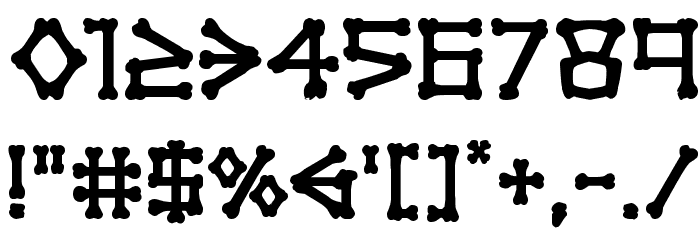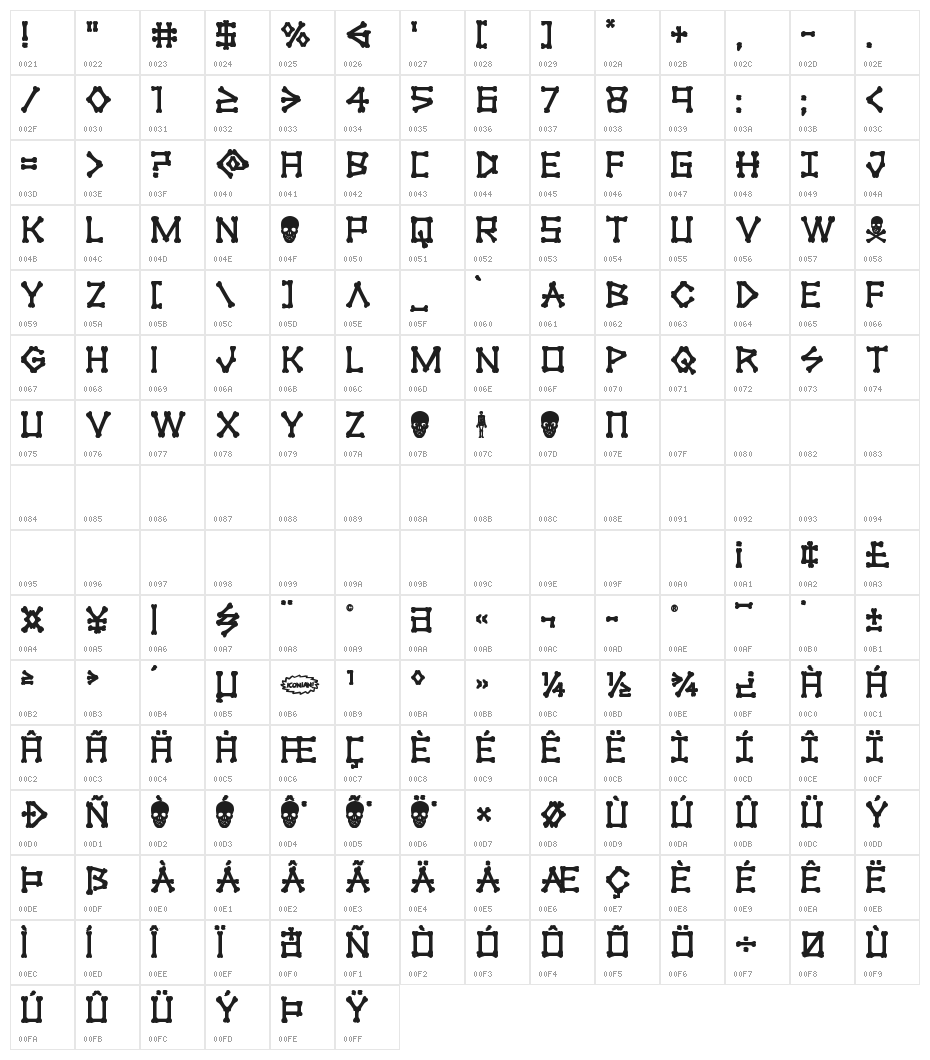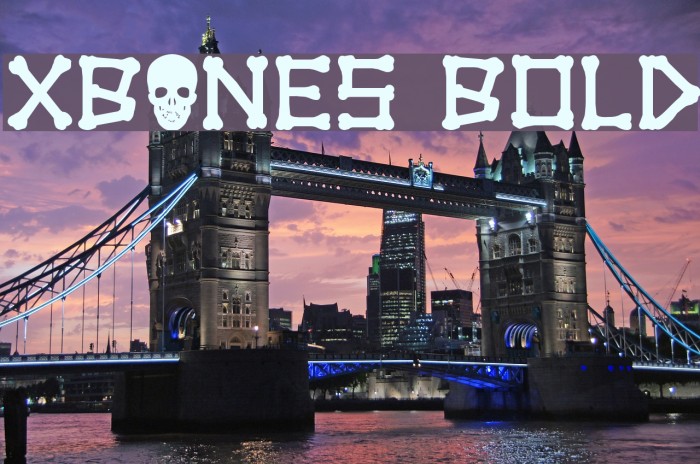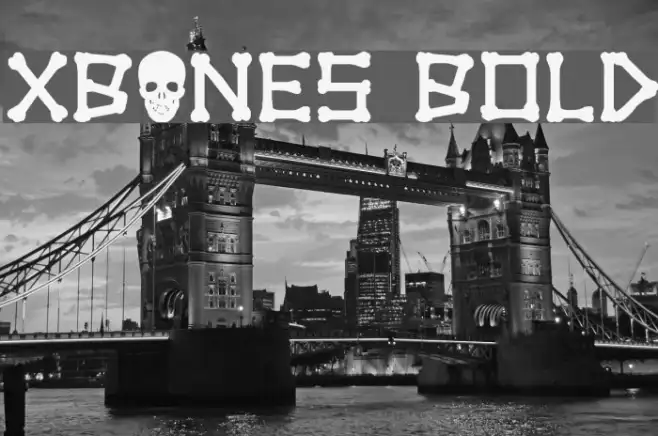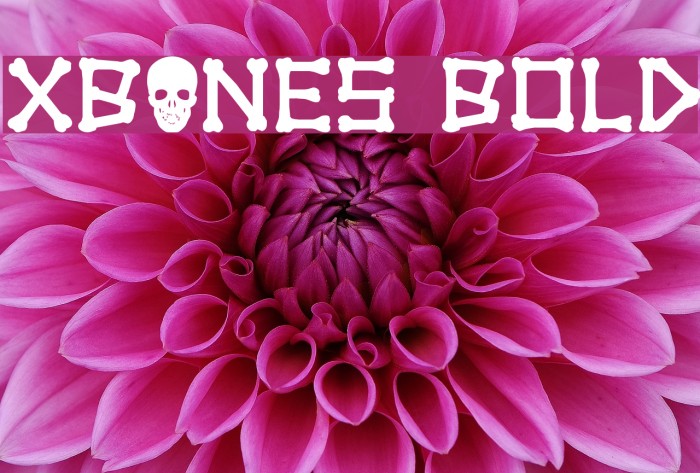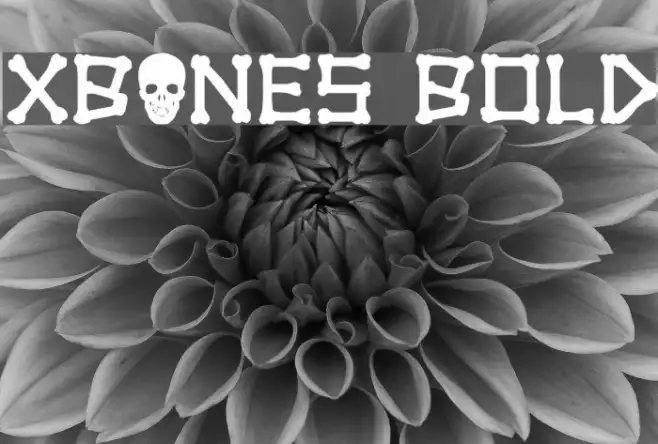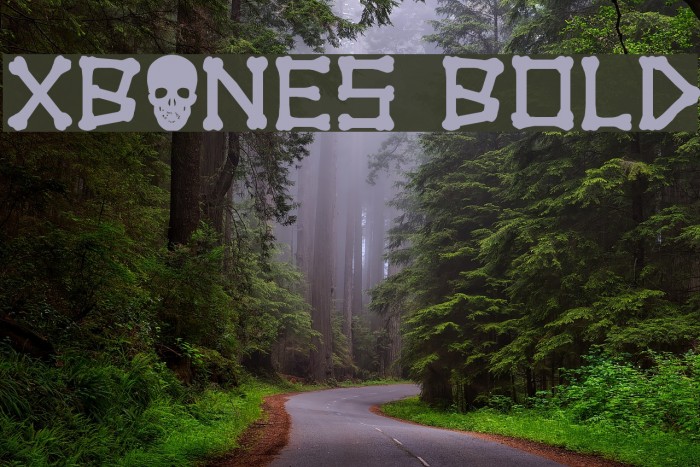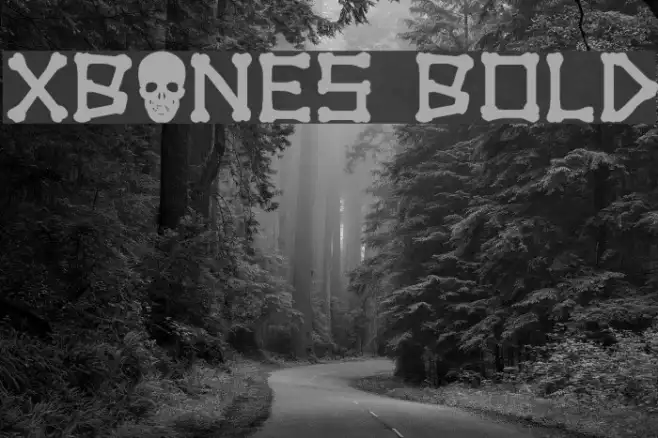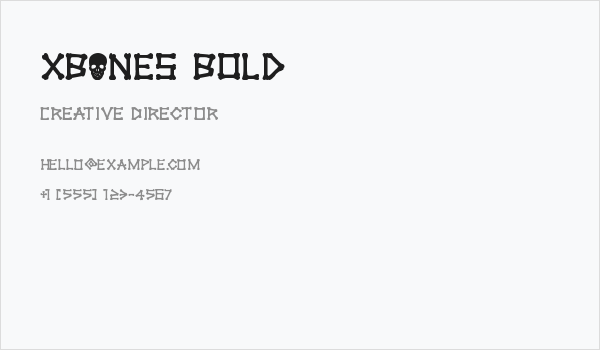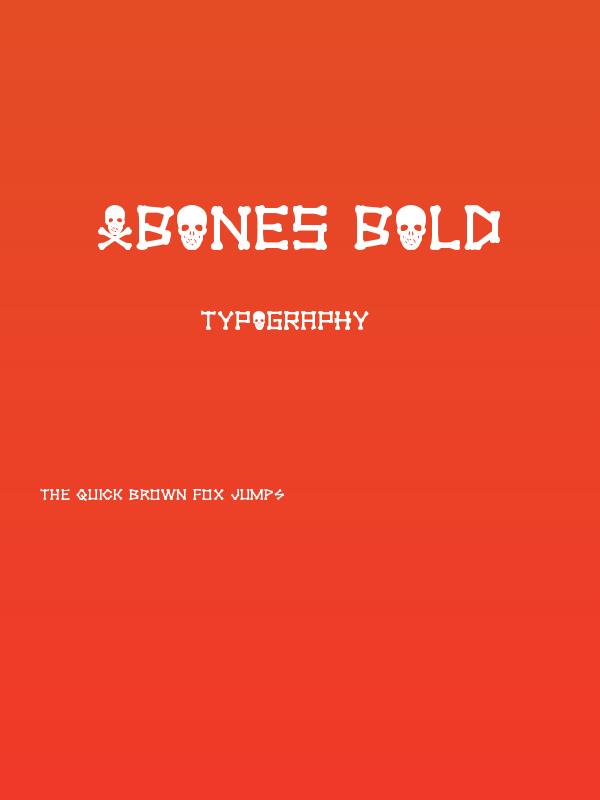
xBONES Bold Font
xBONES Bold Description
This font features a unique and playful design that mimics the appearance of bones. Each character is crafted to resemble skeletal structures, giving it a distinctive and thematic look. The uppercase and lowercase letters maintain a consistent style, with bold strokes and angular edges that enhance the bone-like appearance. Numbers and special characters are also designed in the same skeletal motif, ensuring a cohesive look across all glyphs. This font is perfect for projects that require a spooky or Halloween-themed aesthetic, as it captures the essence of a playful yet eerie design.
| Use Case | Headlines, Logos, Themed Events |
| Proposed Projects | Ideal for Halloween invitations, themed posters, horror movie titles, and decorative signage. |